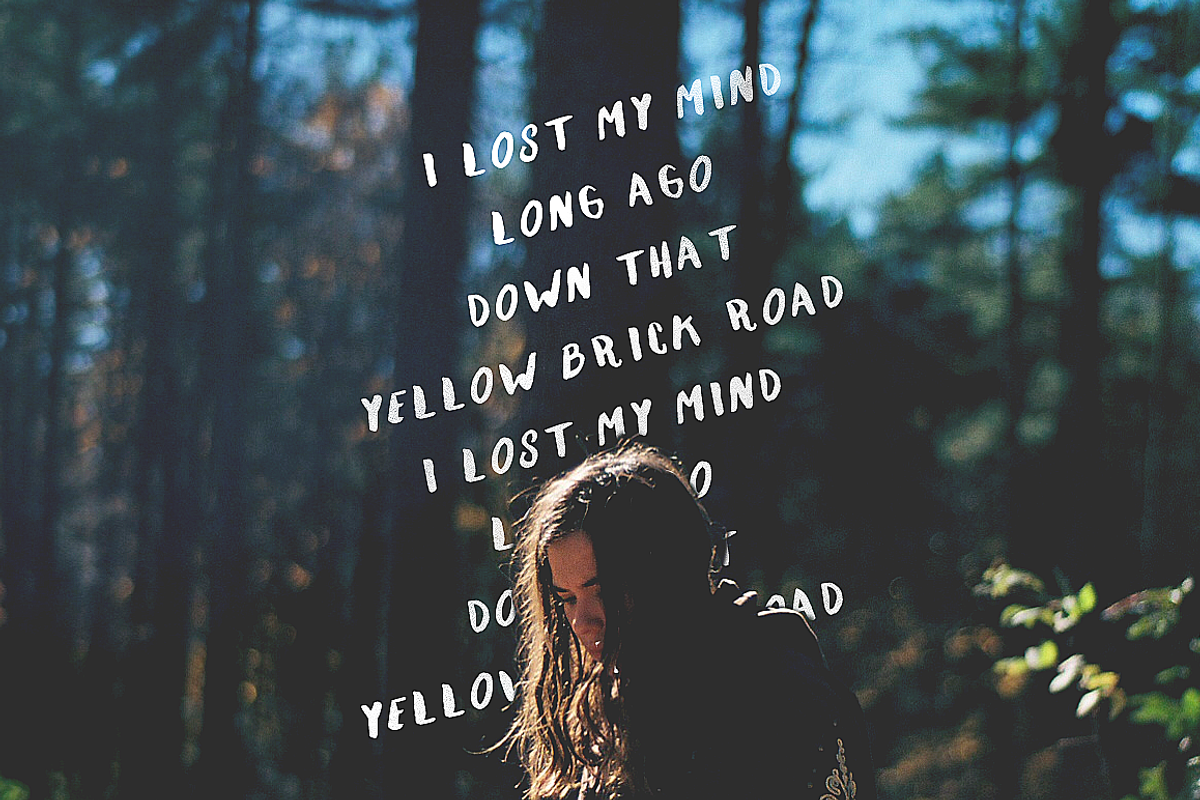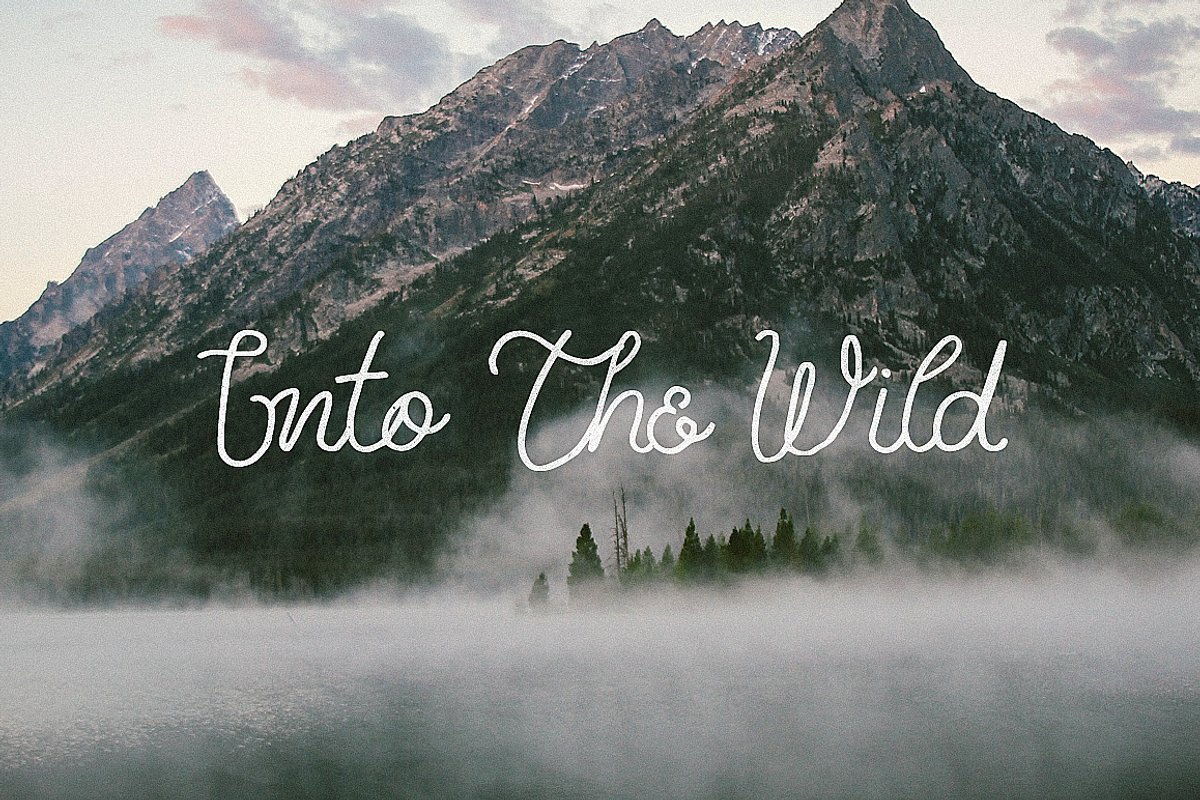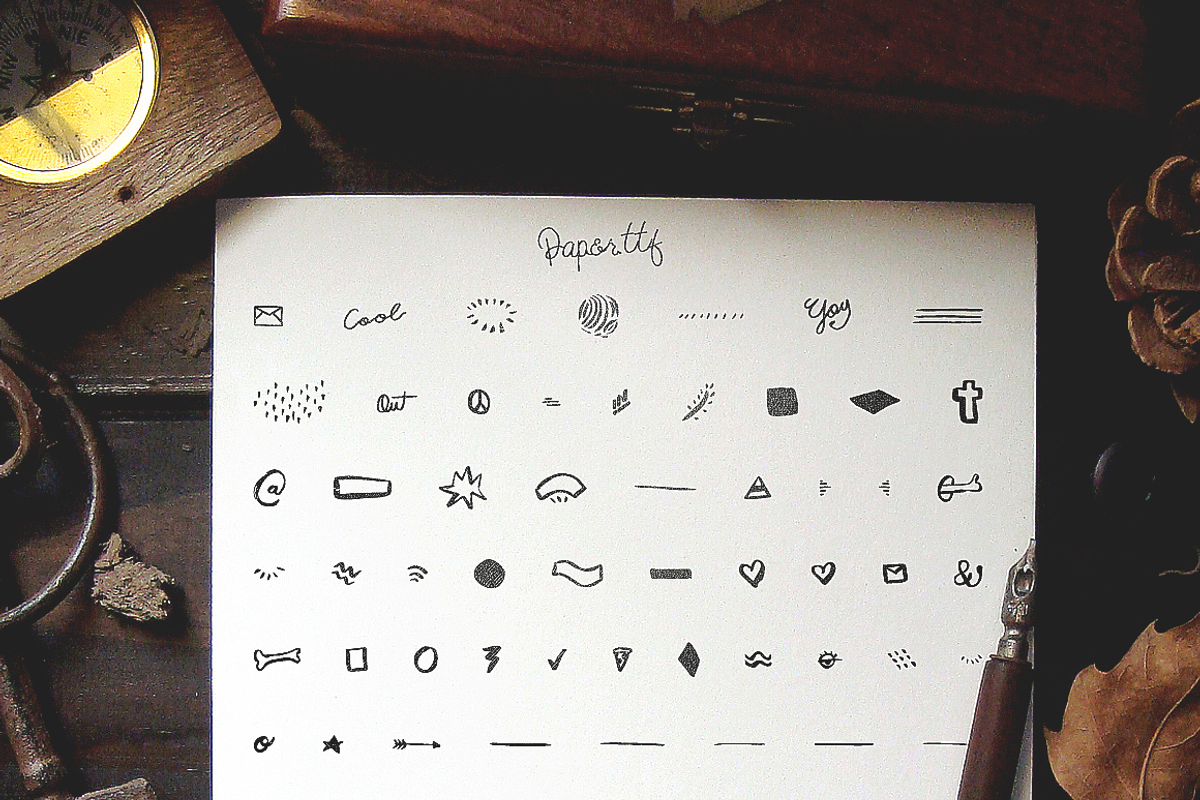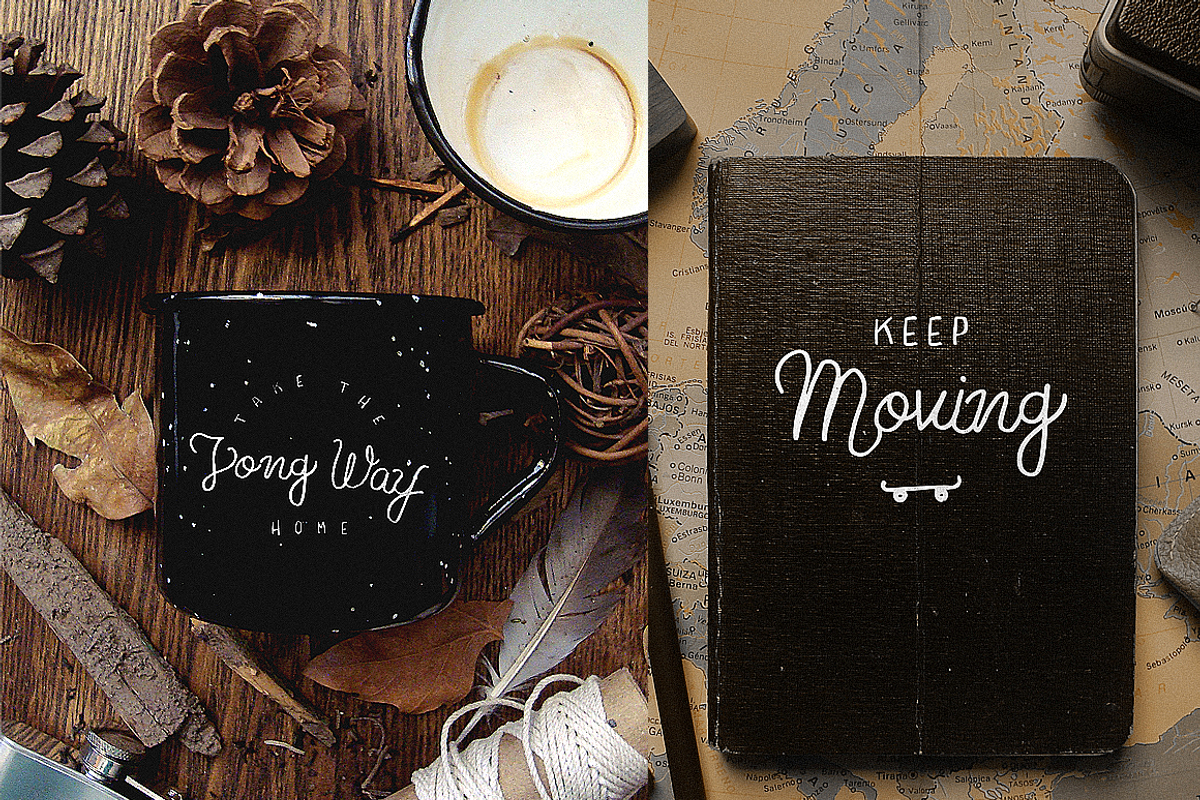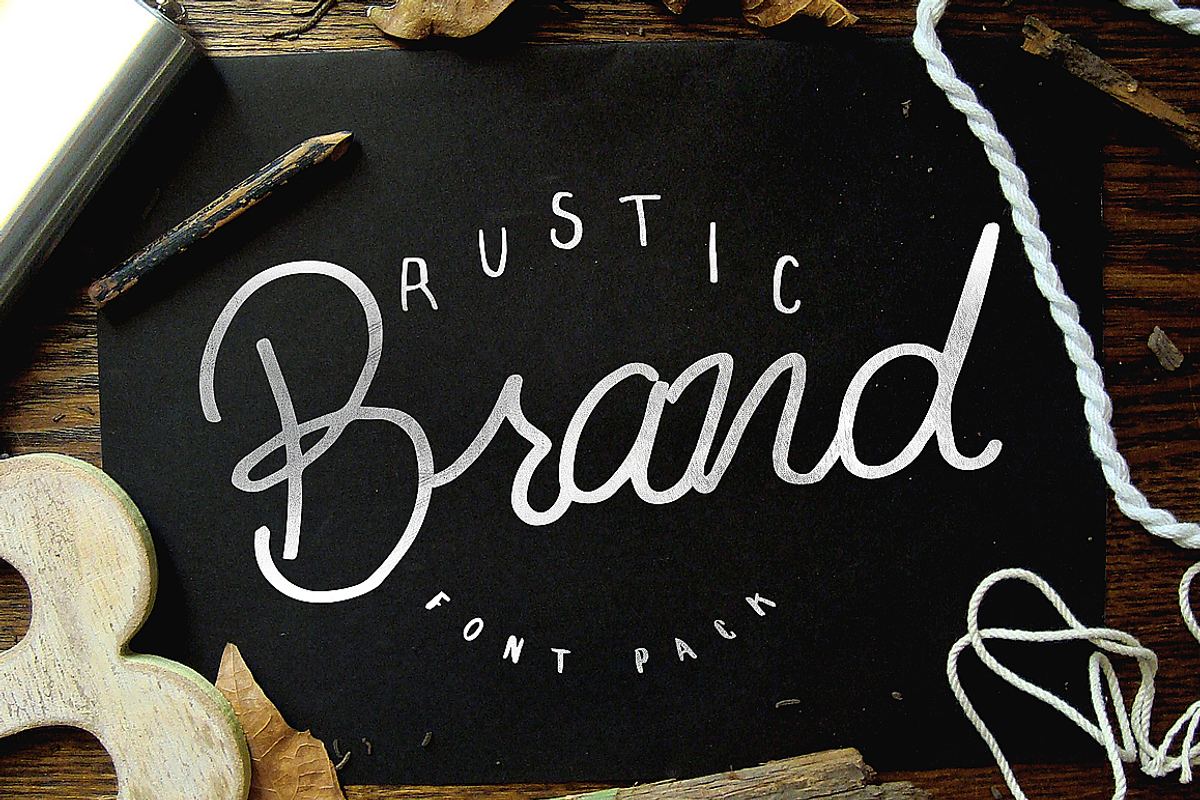
Rustic Brand - 5 Font Pack
Rustic Brand - 5 Font Pack by Noe Araujo is a font selected for branding, posters, packaging, typography.
- Introducing this new pack of fonts to create rustic, handmade style, modern and trend logotypes in seconds What it's included on the pack We
- Let's see whats inside the pack Paper.ttf .otf More than +120 draws, icons, illustrations please check photo no.3 Things.ttf .otf Watercolor
Rustic Brand - 5 Font Pack by Noe Araujo fits naturally into Branding, posters, packaging, typography.